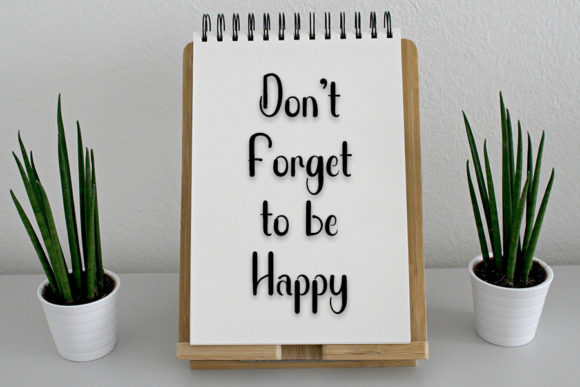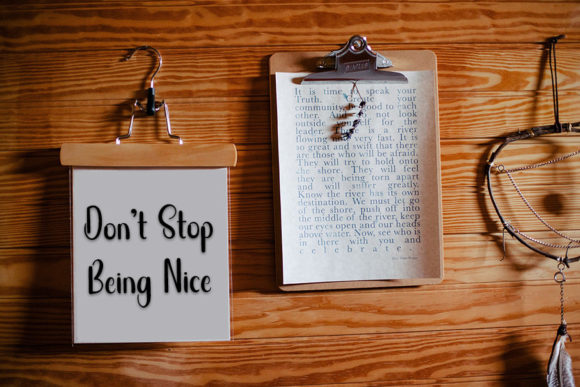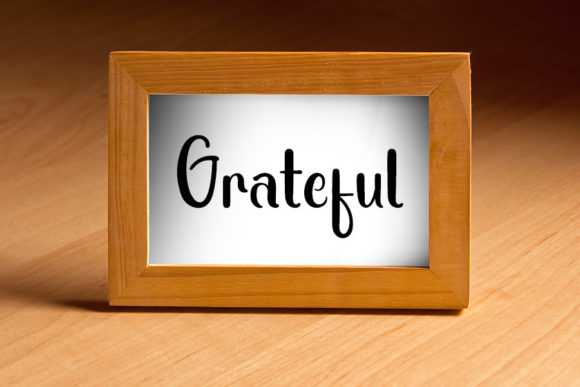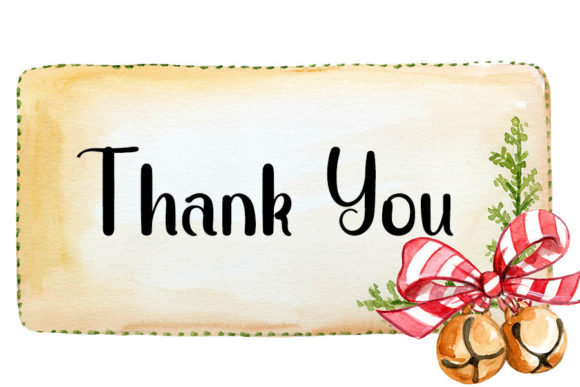
Introduction to Hippie Koala Font
Hippie Koala is a playful and smart-looking handwritten font.
It is the ideal choice for creating eye-catching logos, branding, and quotes Every letter has a trendy touch, which will make your design come alive.
Why Choose Hippie Koala Font?
Hippie Koala Font offers exceptional quality and versatility, making it a valuable addition to your design toolkit. Whether you’re creating for personal projects or commercial use, Hippie Koala Font delivers professional results.